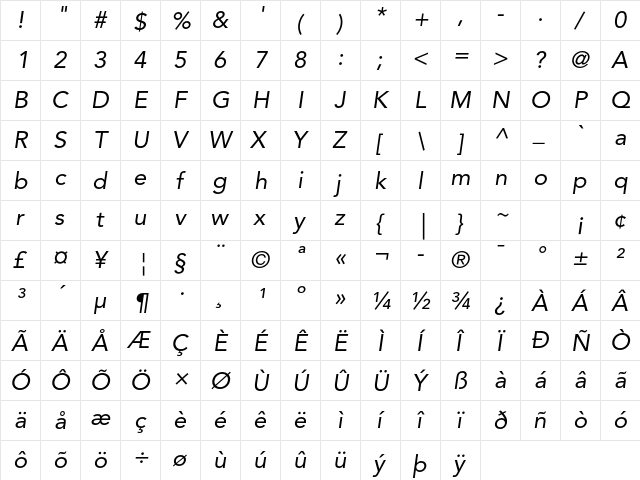
Avenir LT Std 55 Oblique Font Preview
| Designer | Adrian Frutiger |
Design Context for Avenir LT Std Typeface
Avenir LT Std offers clean, dependable letterforms without strong stylistic allegiance, making it a practical choice for designers who need flexibility. Its italic angle brings a sense of urgency and motion to the letterforms. Its slender proportions lend an understated elegance to any composition.
Pro Tip: Try Avenir LT Std for annotation and caption copy alongside an upright companion — the contrast in angle creates a dynamic but ordered typographic system.